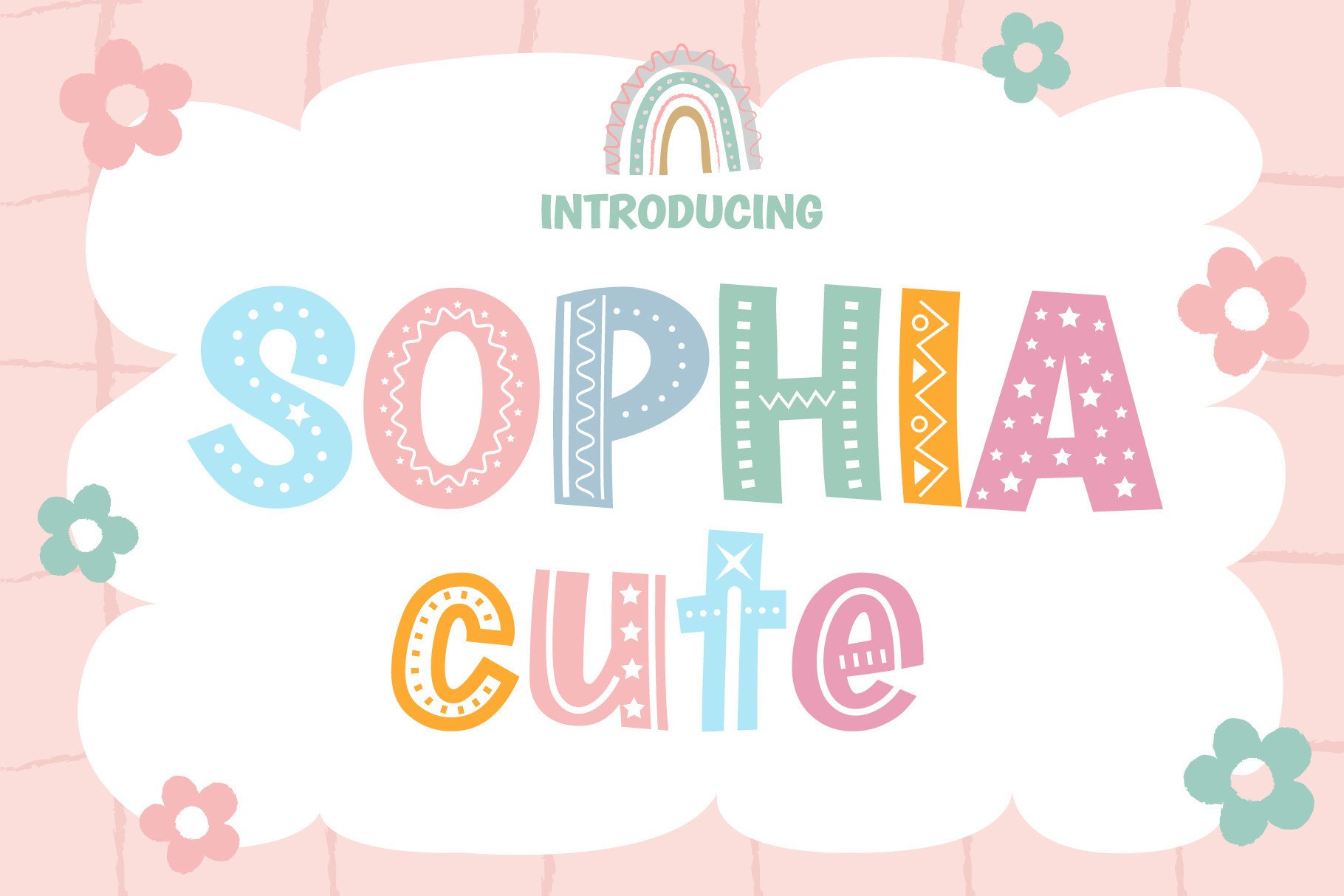
Sophia Cute is a display font that is cute, bright, and fun. It is perfect for children-themed designs, especially when combined with bright and pastel colors. Add this beautiful display font to each of your creative ideas, and notice how it makes them stand out!